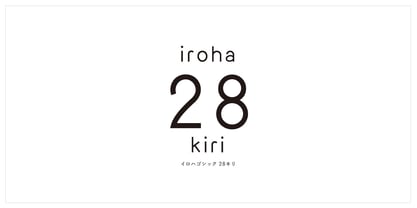
iroha 28kiri StdN
The kana 'iroha 28kiri' is designed to look the same size as the kanji when assembled. The kanji for iroha is common. The design is simple, with an awareness of straight lines. There are 12 kana in total.